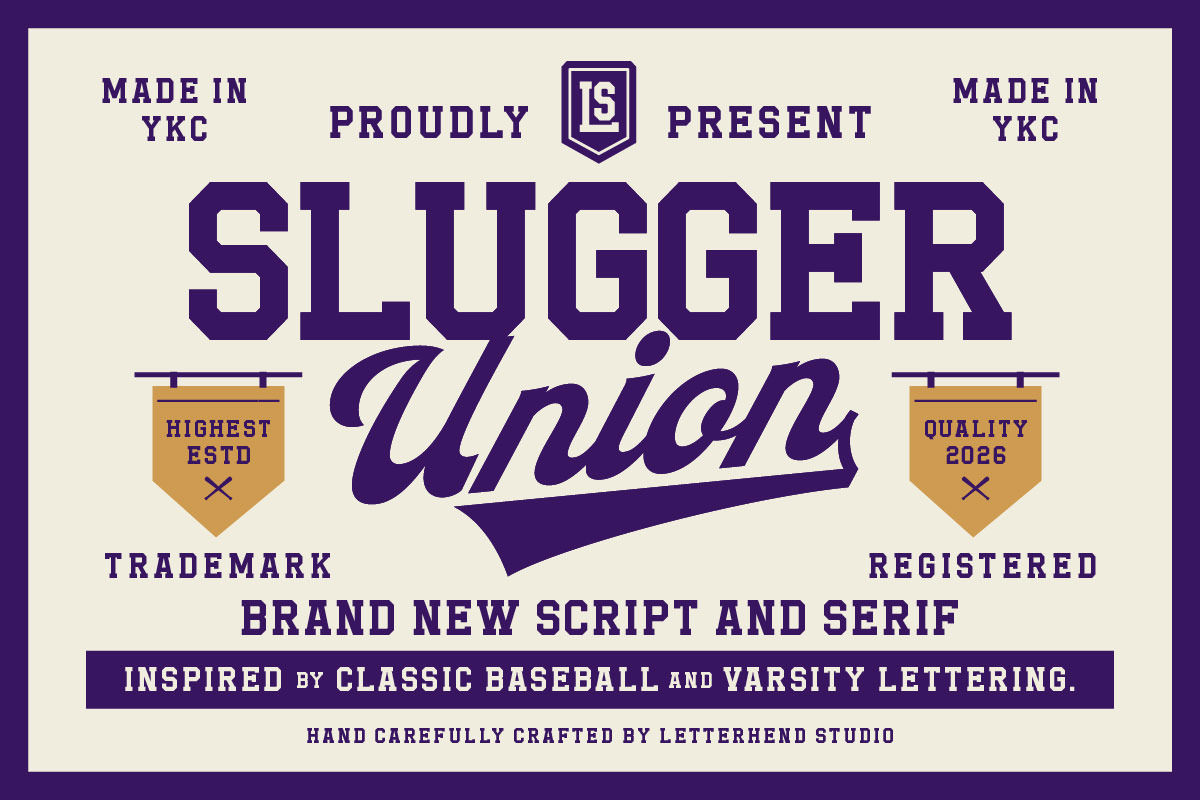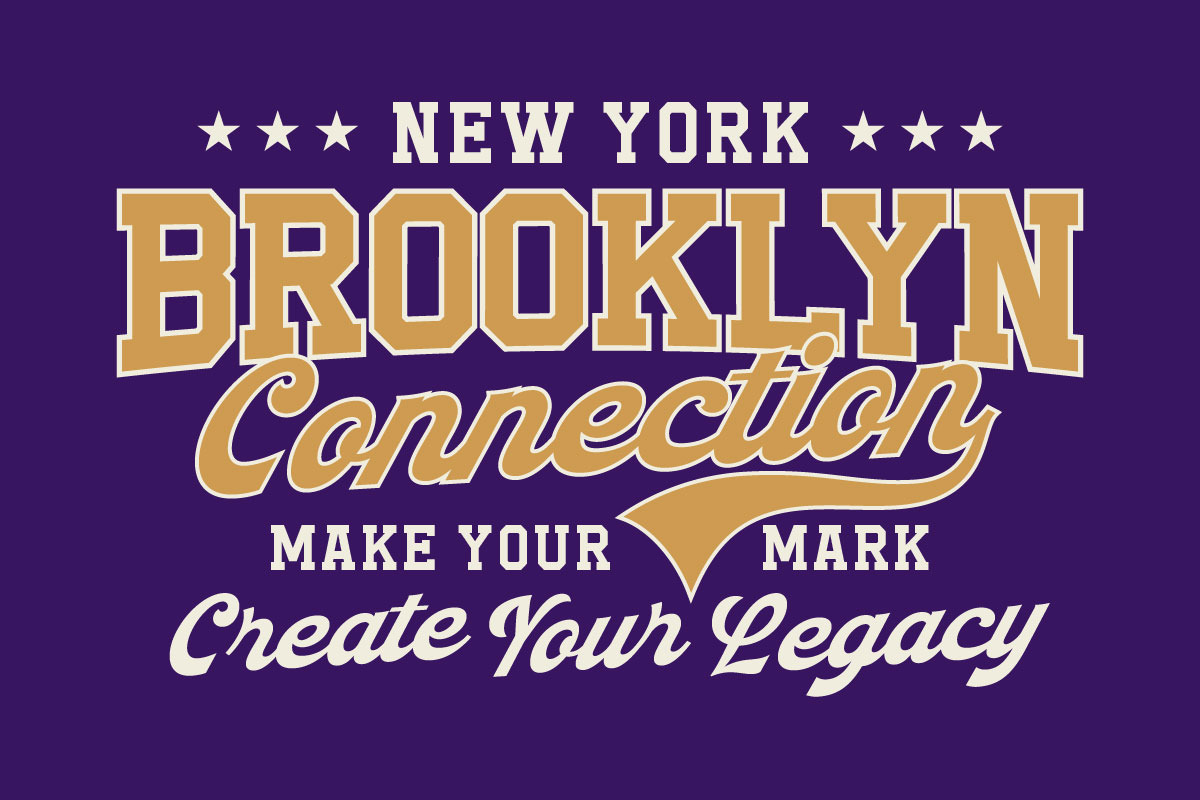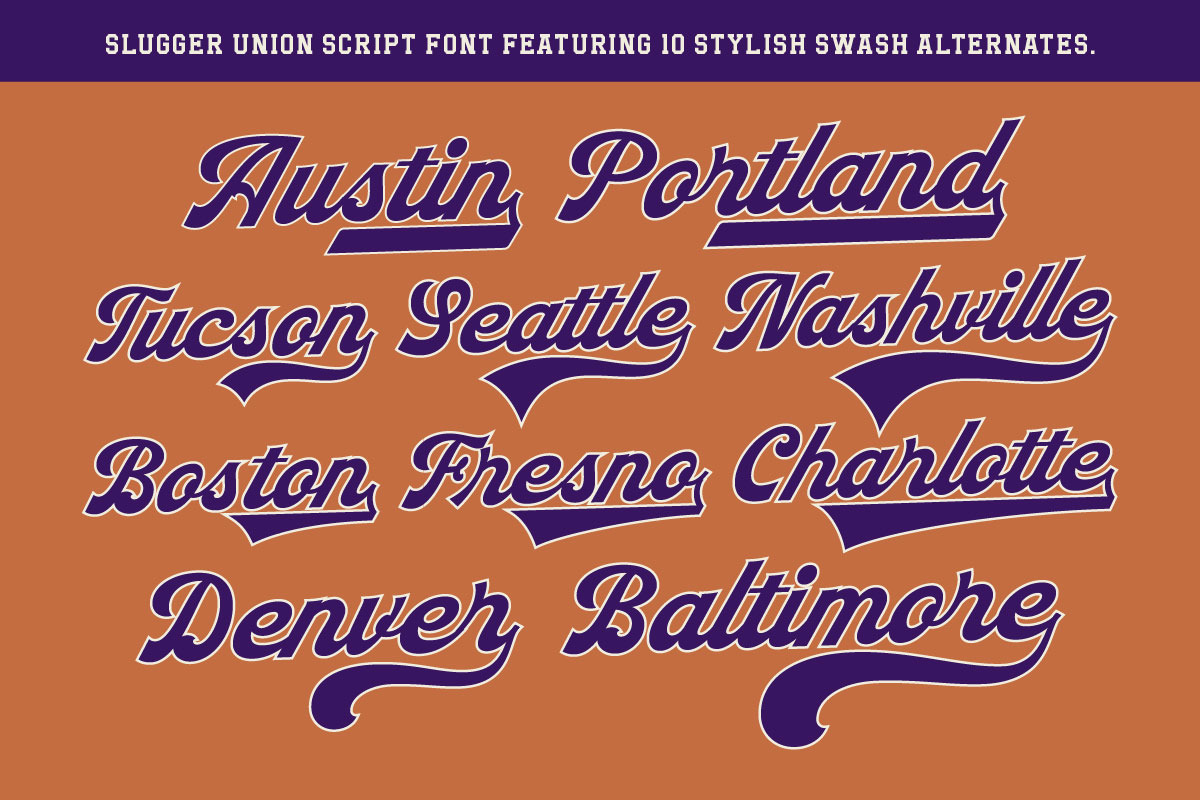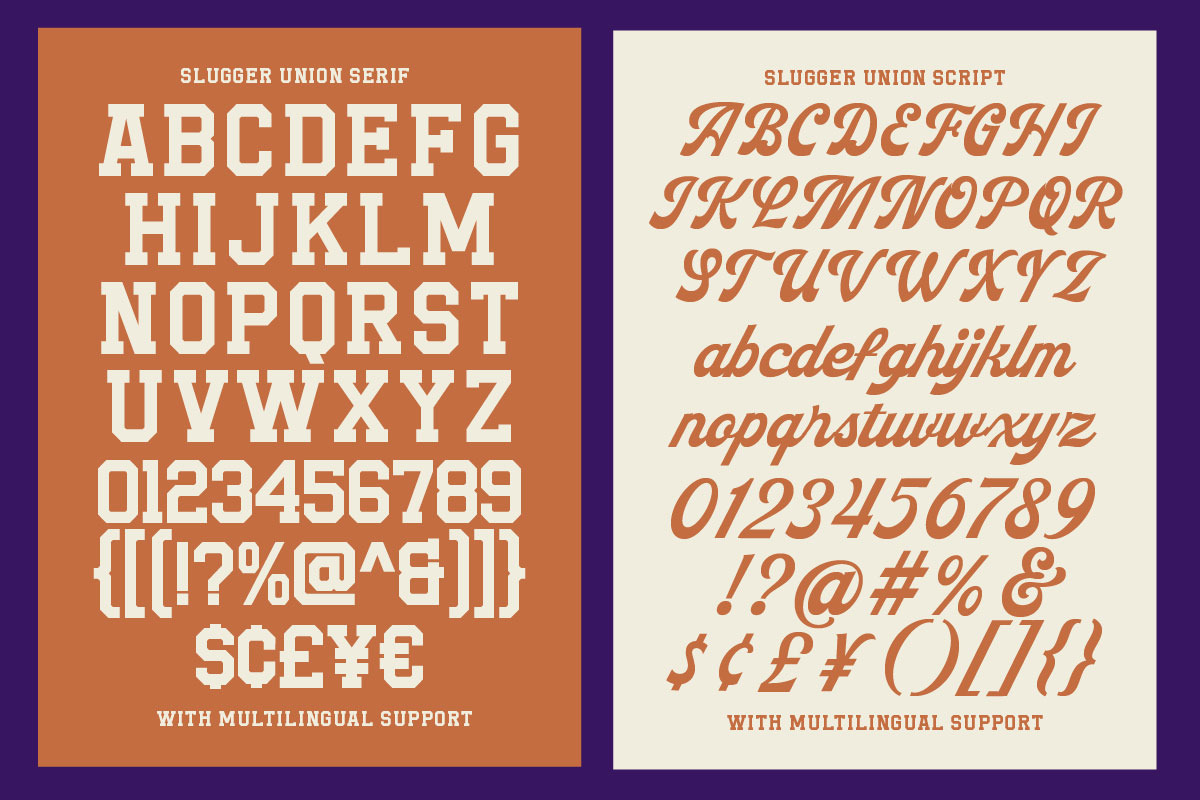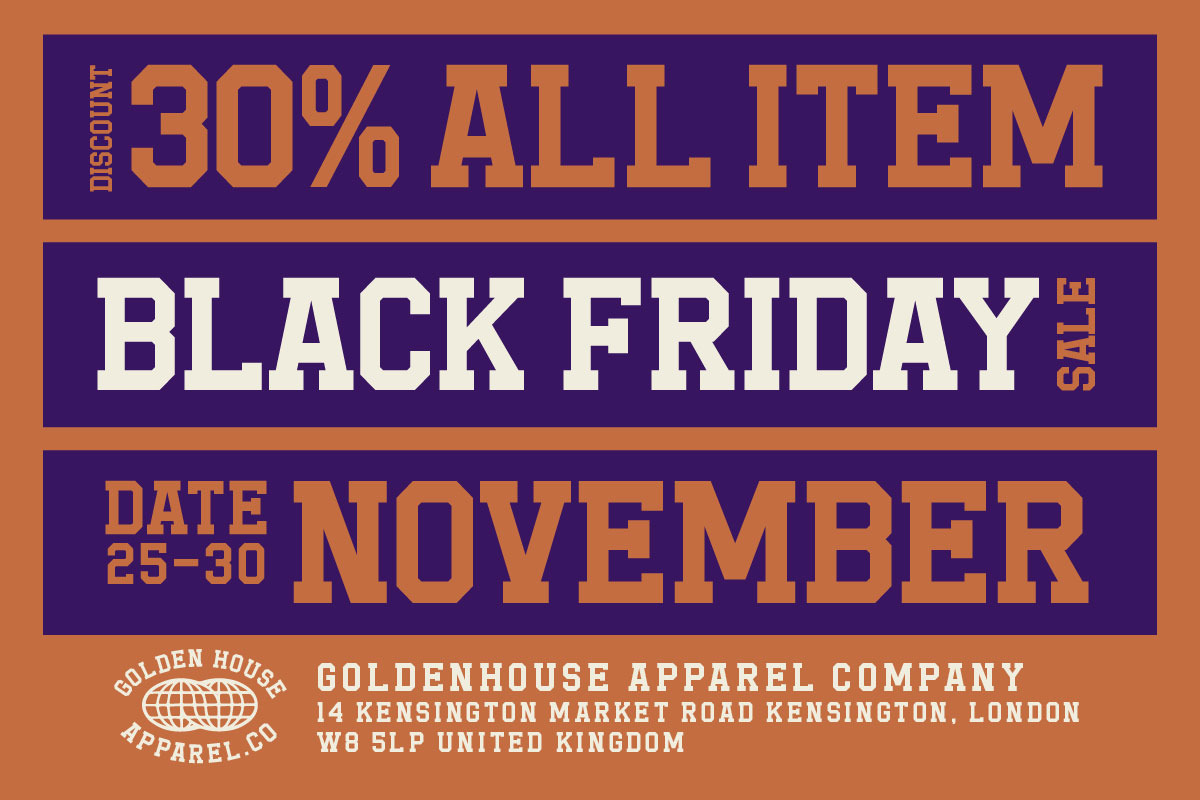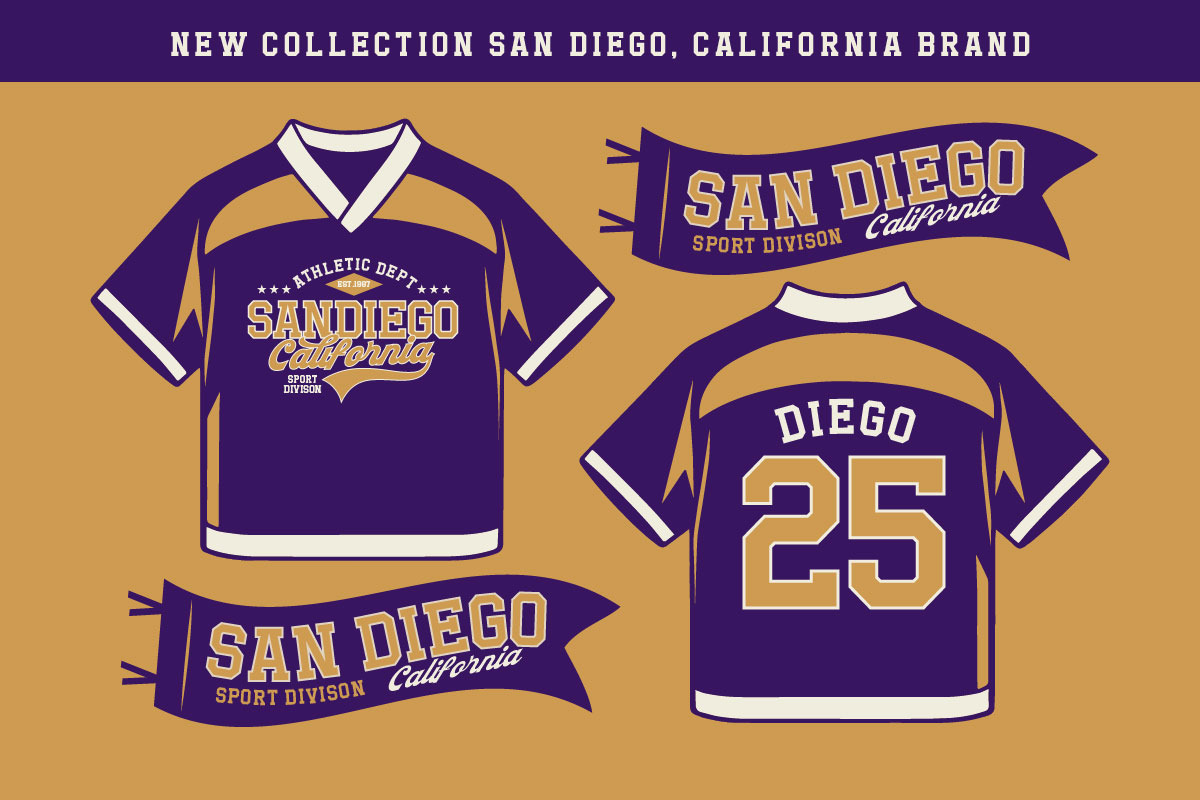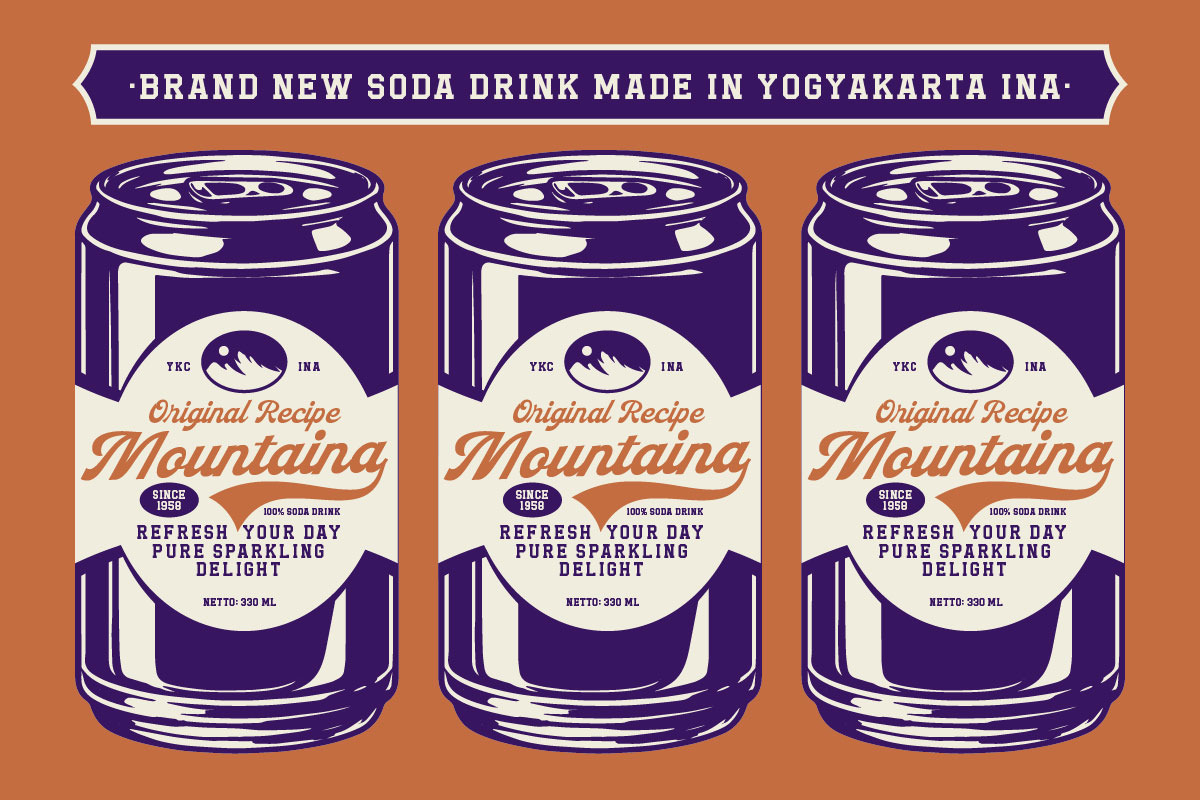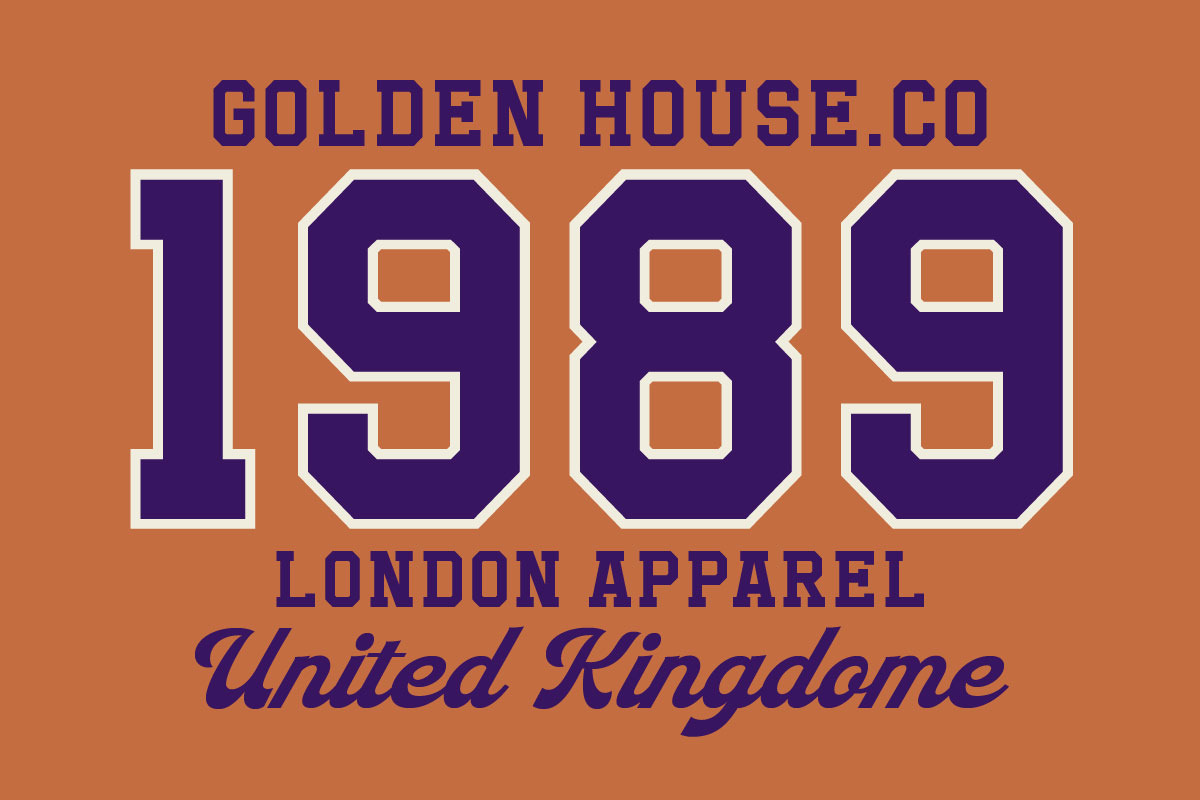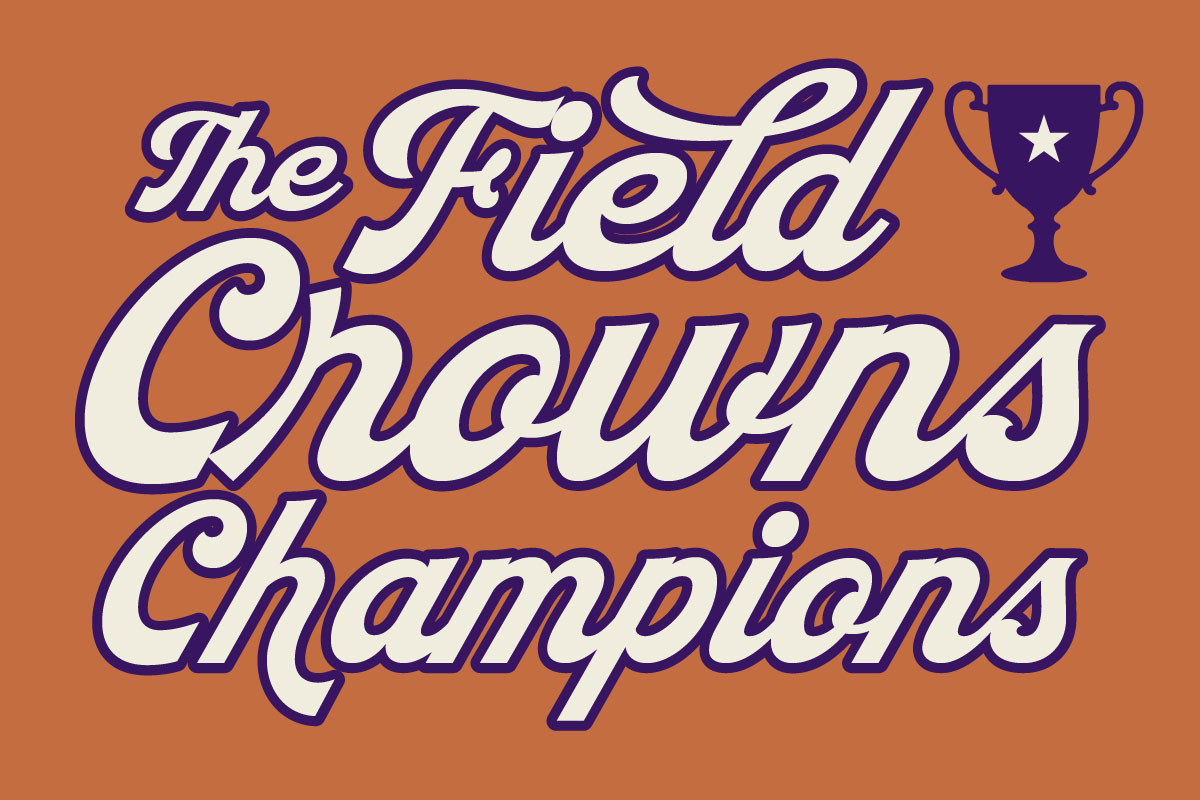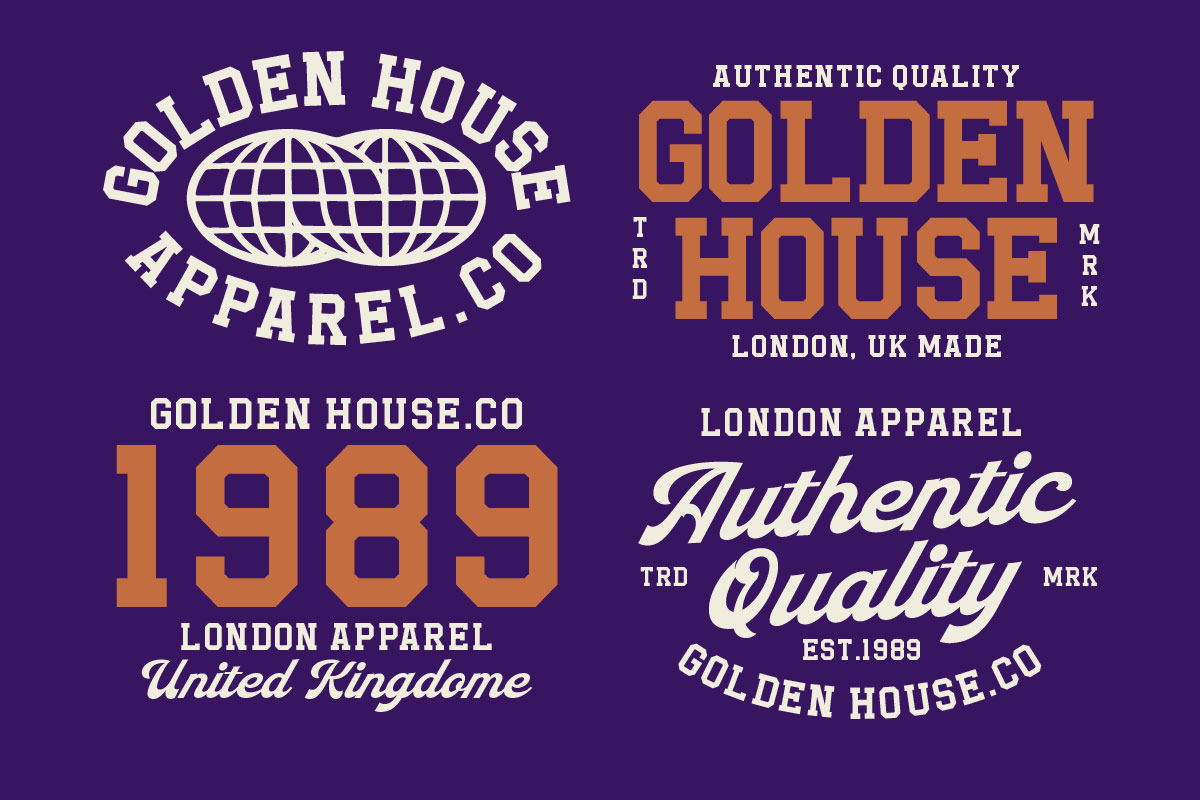
Slugger Union Sporty Font Duo
Slugger Union brings that bold varsity spirit straight into your design game—loud, confident, and full of classic team energy. This font duo blends strong slab-style serif blocks with a smooth, sweeping script, creating a perfect mix of athletic toughness and vintage flair. It’s built for sports branding, retro logos, club badges, posters, and merch-style graphics that want to feel powerful, nostalgic, and full of winning attitude.